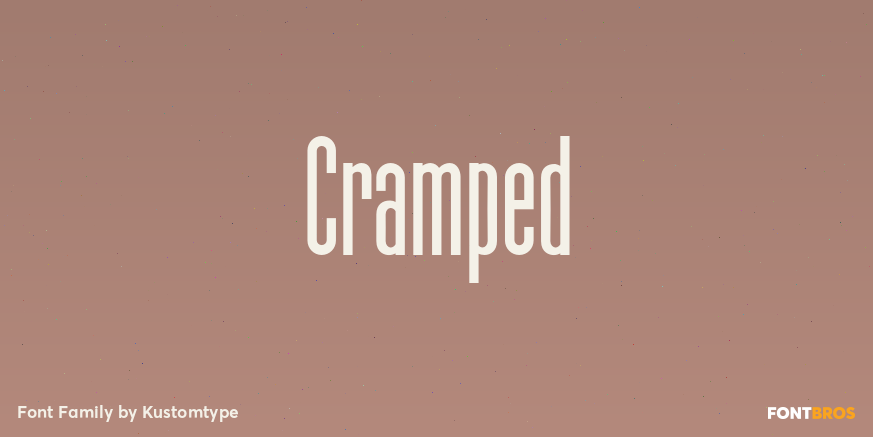
Cramped
About Cramped
Cramped is inspired by sign painters in sixties advertisings with a warm look and a touch of Arts & Crafts. This style of type is instantly associated with advertising and design for high-end products. Cramped is meticulously drawn for quality and readability,…